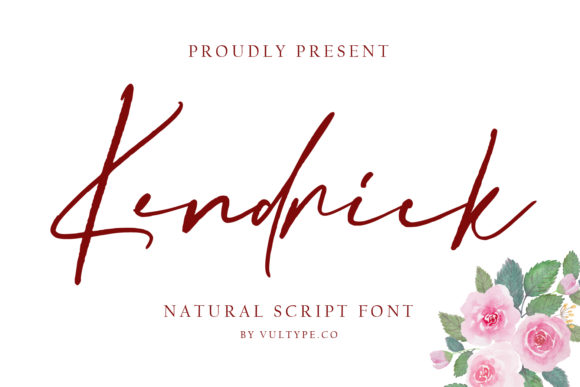
**Kendrick Font: The Epitome of Elegance and Charm for Your Visual Expressions**
Step into the world of exceptional typography with Kendrick Font, a masterpiece crafted by the renowned Vultype. This exquisite script font embodies the essence of grace, sophistication, and unwavering style.
Kendrick's meticulously designed curves and delicate strokes dance across your digital canvas, infusing your designs with an irresistible allure. Whether you're crafting heartfelt wedding invitations, expressing gratitude through personalized thank you cards, capturing poignant quotes, or creating stunning greeting cards, Kendrick Font elevates your creations to new heights of beauty and refinement.
Beyond its undeniable aesthetic appeal, Kendrick Font is the perfect companion for building a strong brand identity. Its timeless charm lends itself effortlessly to the creation of eye-catching logos and distinctive business cards. Unleash your creativity and watch as Kendrick transforms your designs into unforgettable expressions of your vision.
For those seeking to amplify their presence on Instagram, Kendrick Font holds the key to unlocking exceptional engagement. Its captivating nature draws the eye, inviting followers to immerse themselves in your captivating content. Let Kendrick elevate your Instagram edits, making every post a visual feast that captivates and inspires.
Embrace the power of Kendrick Font and witness the transformation of your designs. Its versatility knows no bounds, seamlessly blending with various aesthetics and styles. From classic elegance to modern whimsy, Kendrick adapts effortlessly, adding a touch of sophistication to every project it graces.
Indulge in the world of Kendrick Font and unlock a treasure trove of creative possibilities. Let its delicate strokes become your artistic brush, painting words and designs with breathtaking beauty. Experience the transformative power of typography and elevate your digital presence to new levels of enchantment.